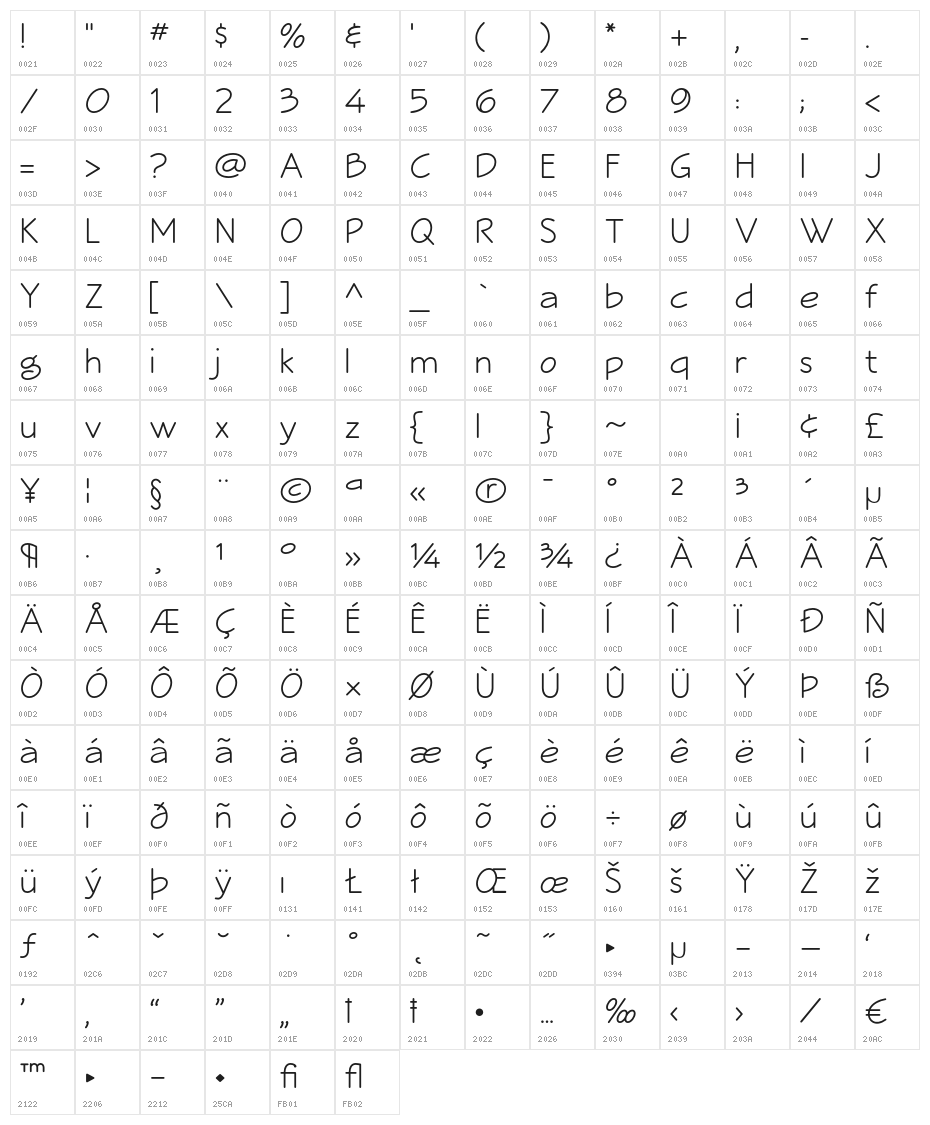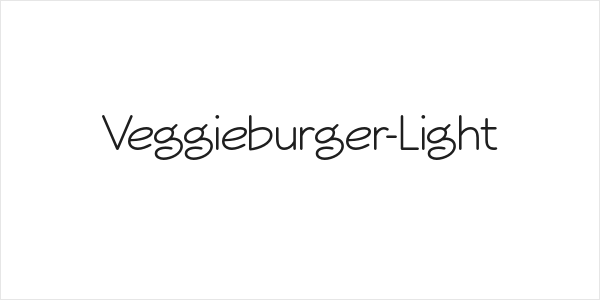
Veggieburger-Light Font
Veggieburger-Light Description
This font features a clean and modern design with rounded edges and a friendly appearance. The characters are evenly spaced, providing a harmonious and balanced look. The uppercase letters are slightly taller than the lowercase, maintaining a consistent line weight throughout. The numerals are clear and easy to read, while the special characters blend seamlessly with the rest of the typeface. Its simplicity and clarity make it versatile for various design applications.